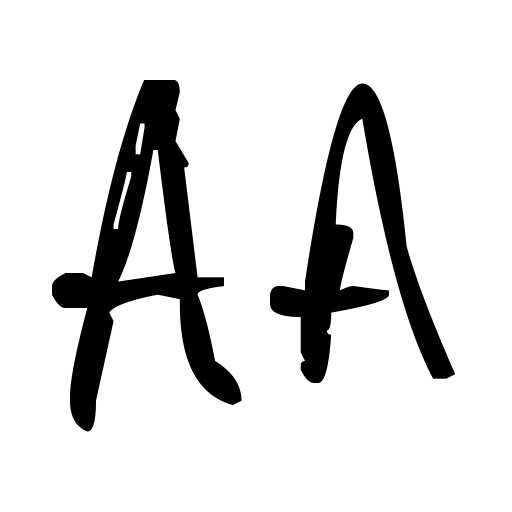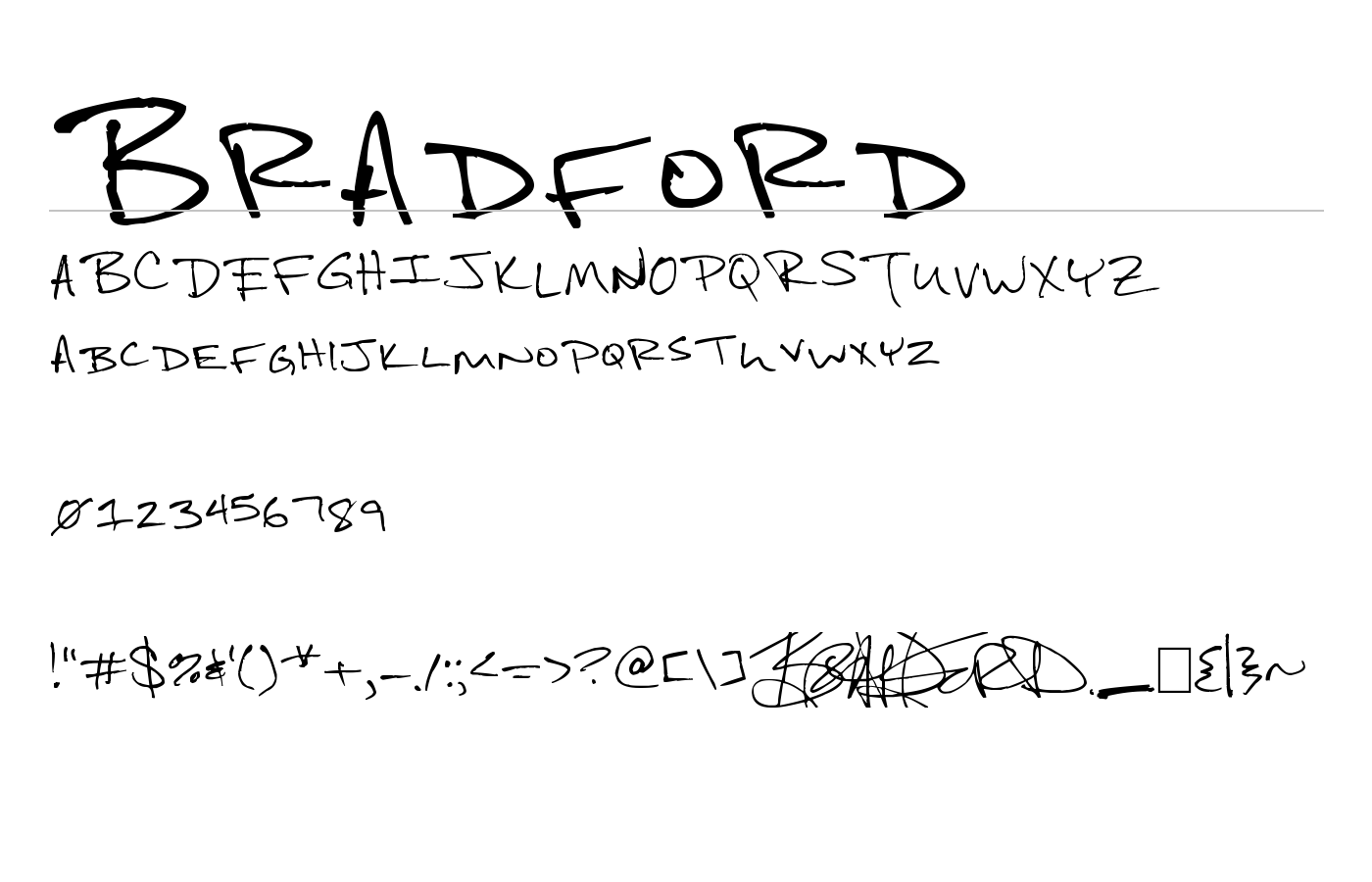
Bradford is a distinctive handwritten font with an informal and expressive style, characterized by its irregular, brush-like strokes and a rough, spontaneous feel. Its light weight and varied stroke widths give it a lively, dynamic personality, making it ideal for creative projects, casual branding, and artistic headlines that seek a personal, authentic touch. This font works best in contexts where a natural, hand-crafted appearance adds warmth and individuality, such as logos, posters, and social media graphics.
Bradford Font
About Bradford Font